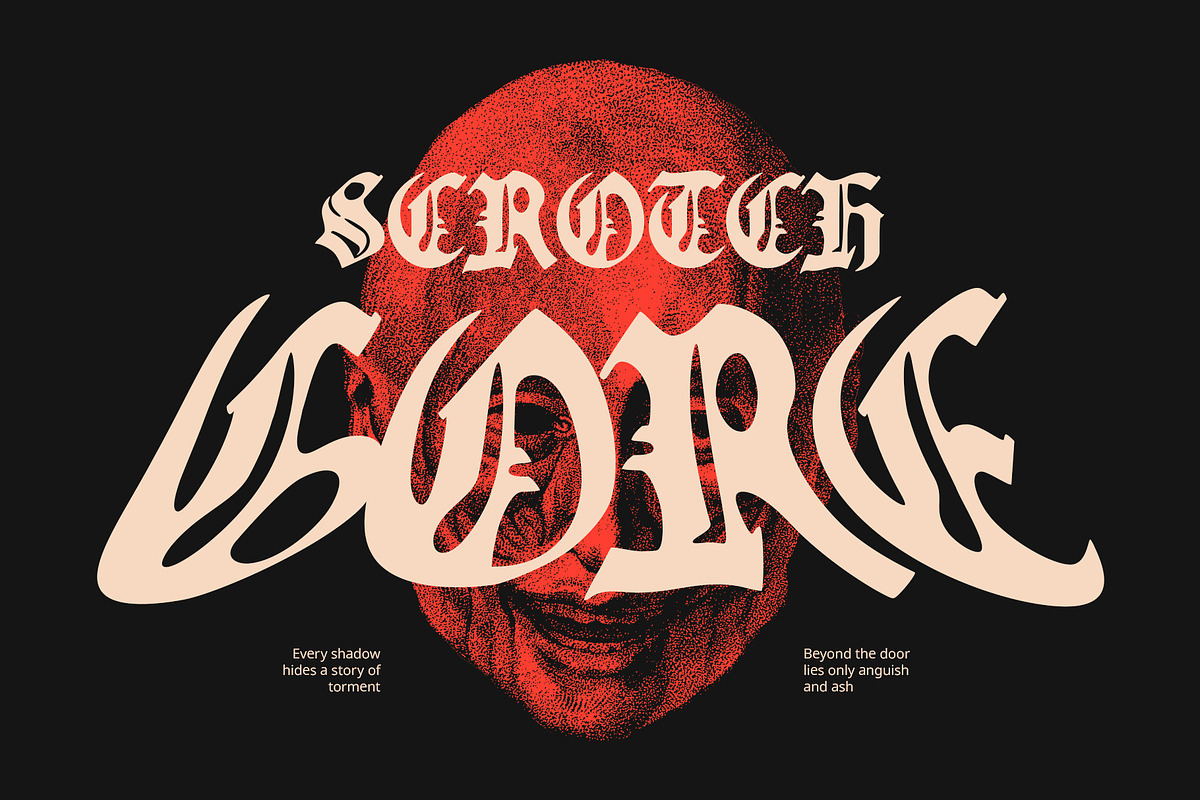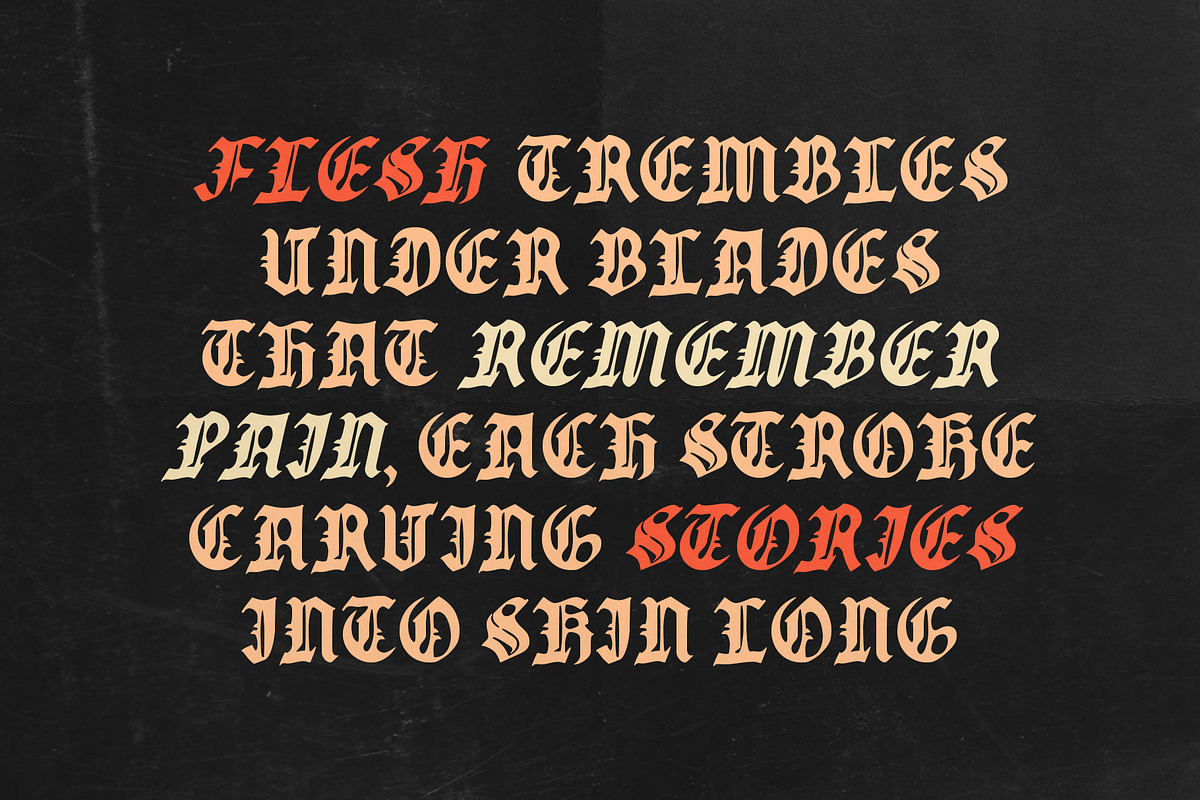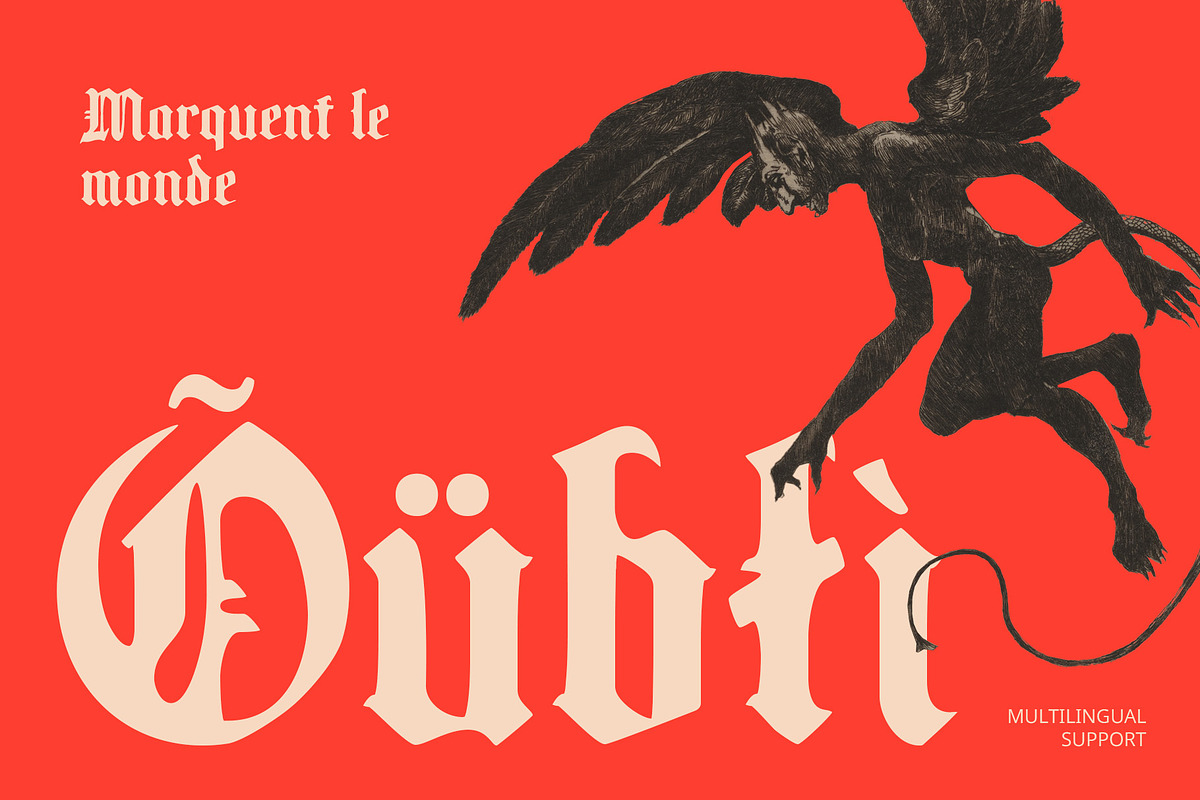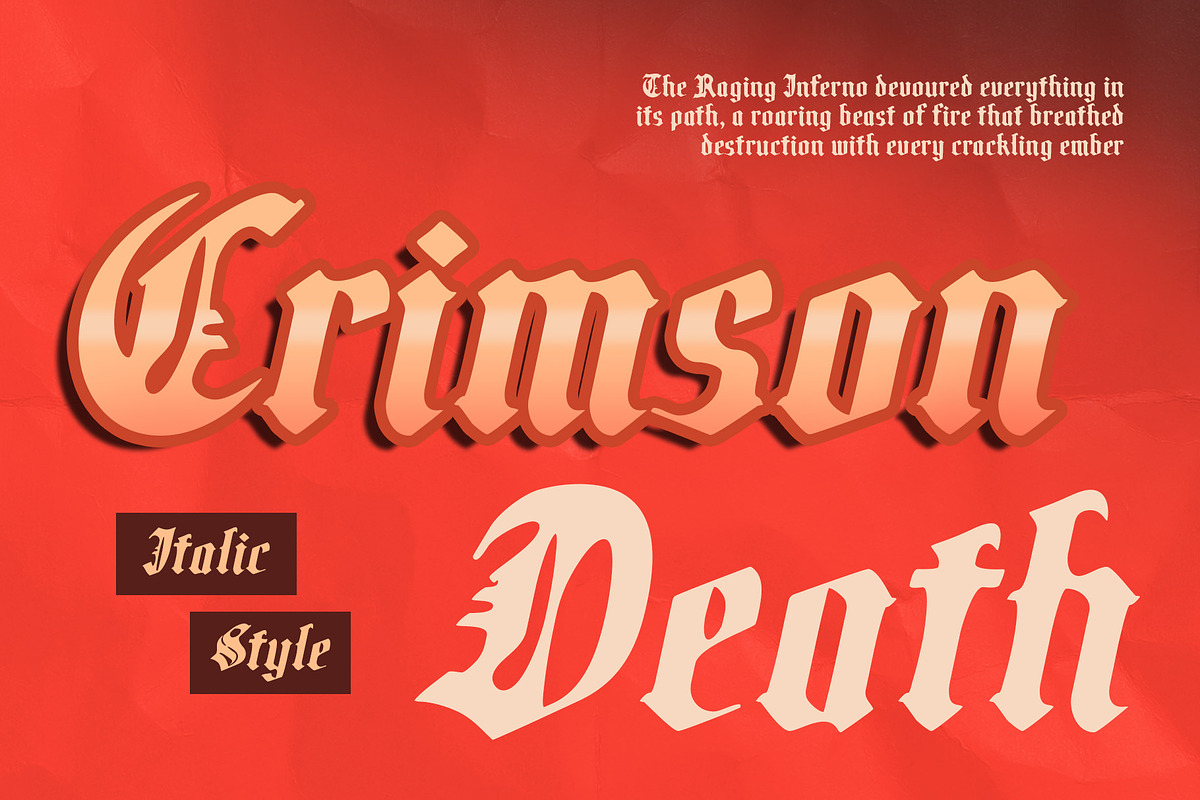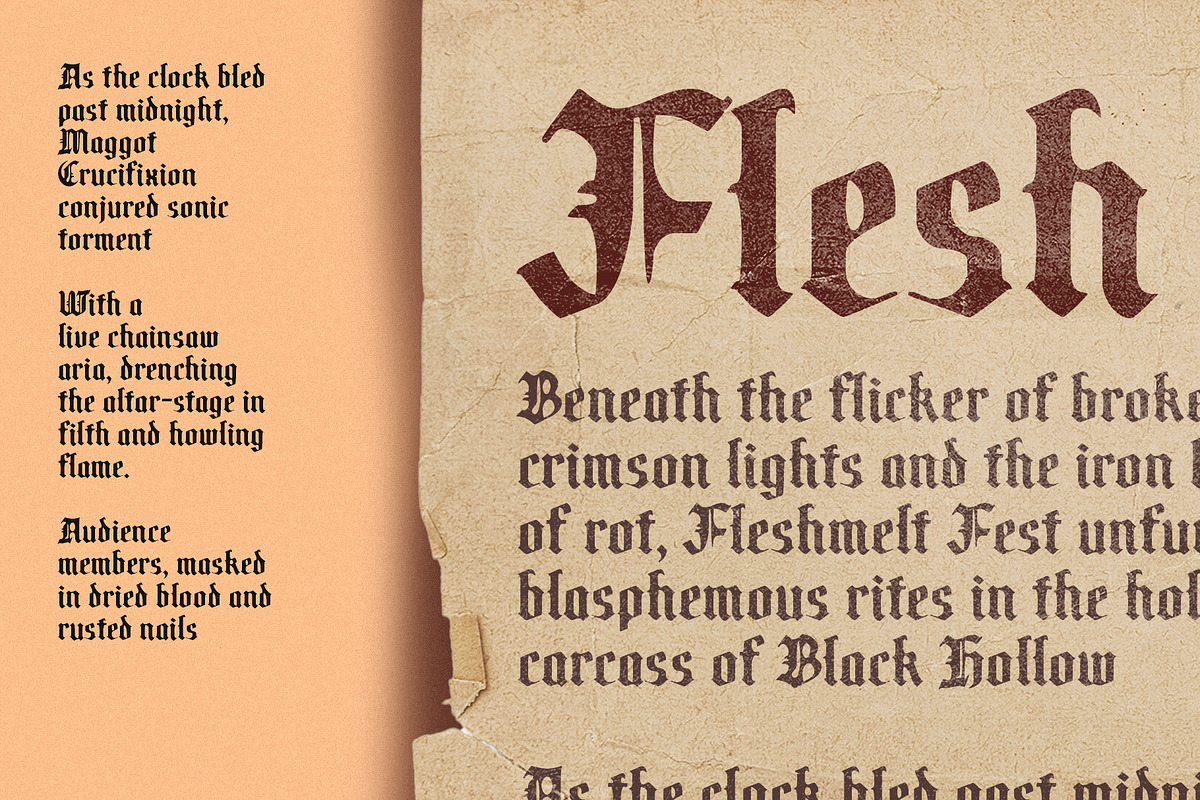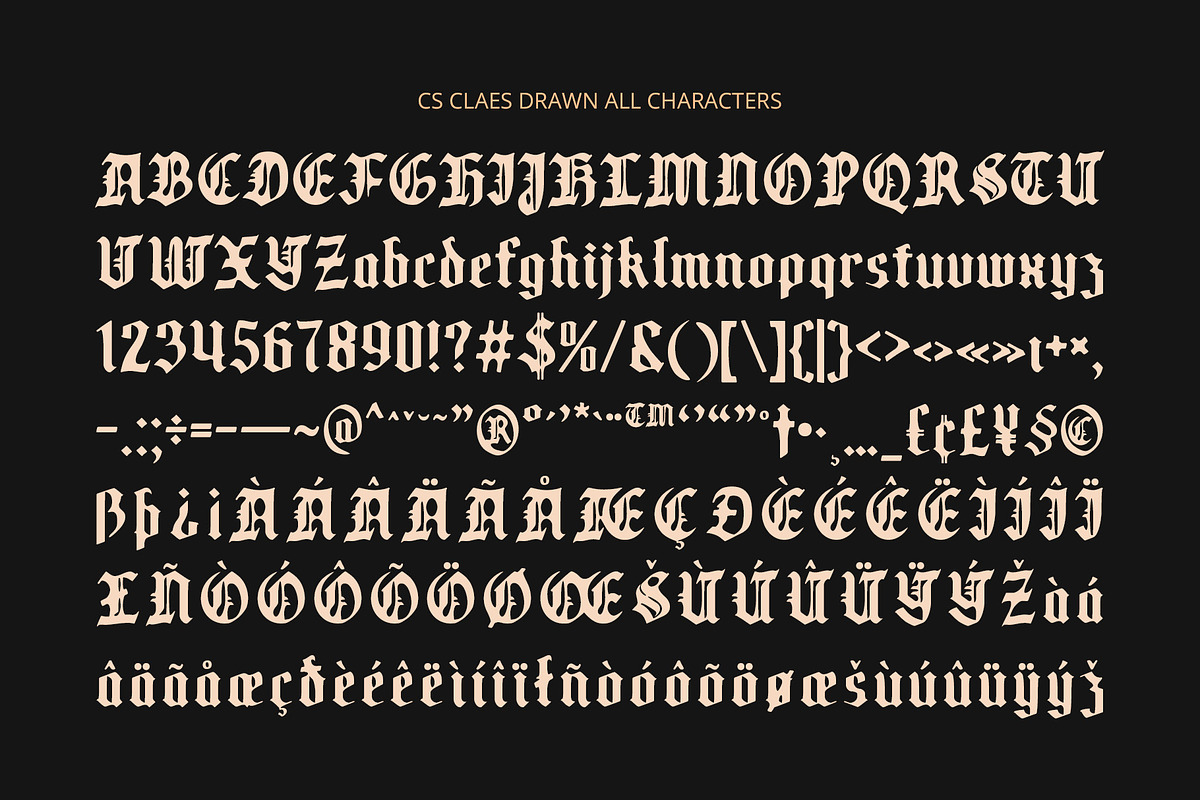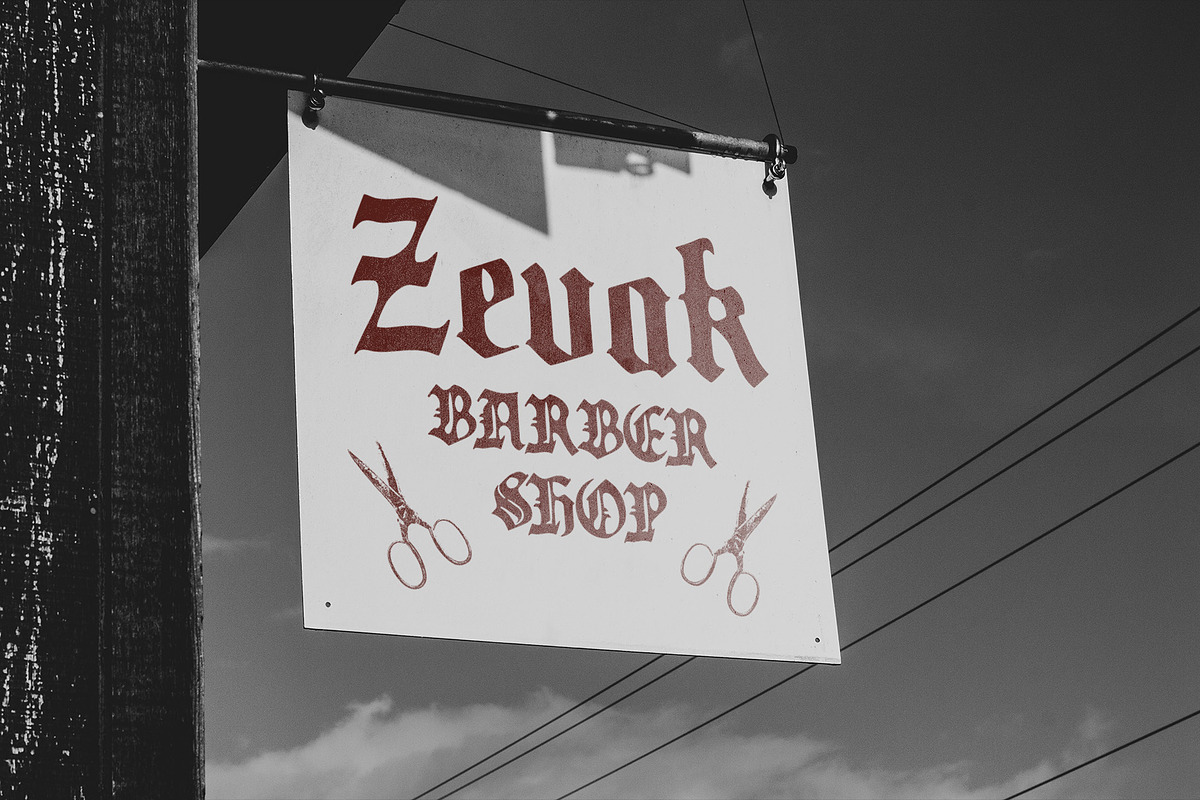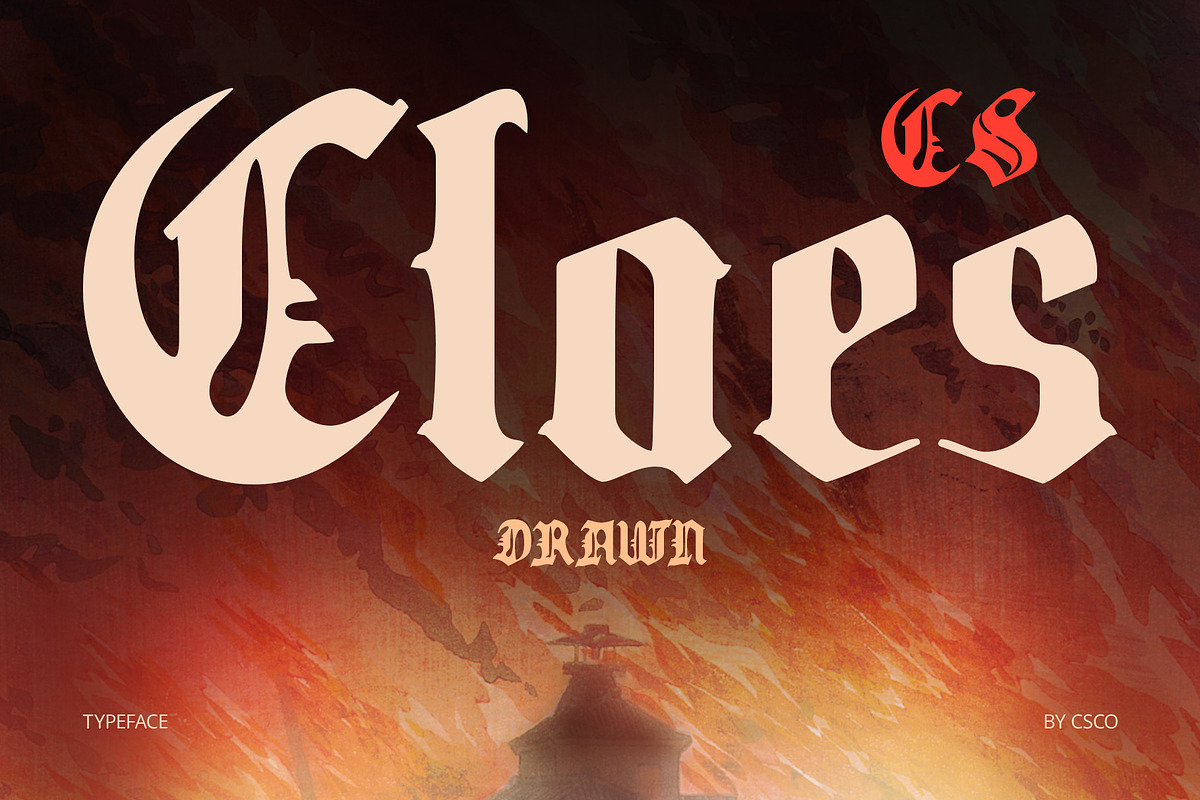
CS Claes Drawn
CS Claes Drawn: Medieval Power with a Handcrafted Edge
Bold Old English Aesthetic with Historical Influence This is a display font rooted in the timeless elegance of Old English lettering, inspired by the bold and ornamental forms found in medieval manuscripts. Its sharp serifs, pointed strokes, and intricate structure evoke a strong sense of tradition, authority, and heritage.
Handcrafted Texture for Added Character The distinctive drawn effect adds a textured, handmade quality to the font, softening its rigidity with organic imperfections. This layer of rough artistry brings a sense of authenticity and depth, bridging the gap between historical formality and modern creativity.
Dramatic, Mysterious, and Rich with Emotion This classic font with historical roots balances drama and elegance through its heavy strokes and decorative elements. The result is a font that feels mysterious, emotional, and steeped in visual storytelling.
Perfect for Fantasy, Metal, and Editorial Themes From metal band logos and fantasy book covers to gothic posters and classic editorial layouts, this artistic font fits perfectly into projects that demand presence and personality. It adds gravitas to your titles, sophistication to your packaging, and depth to your visual identity—ideal for bold creatives who want to tap into historic richness with a modern twist.